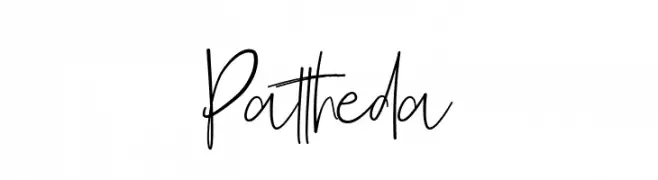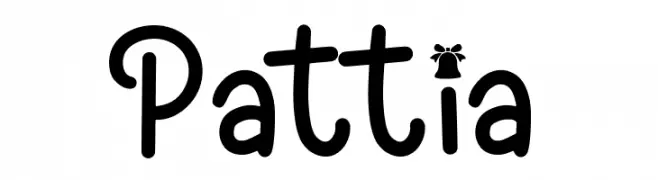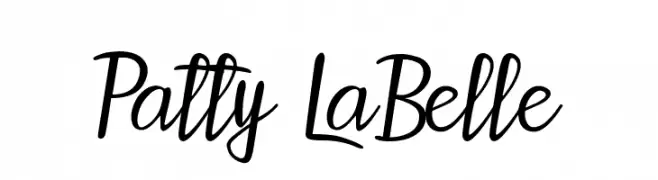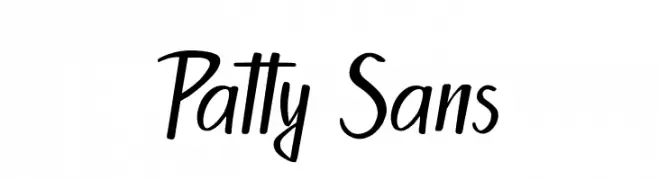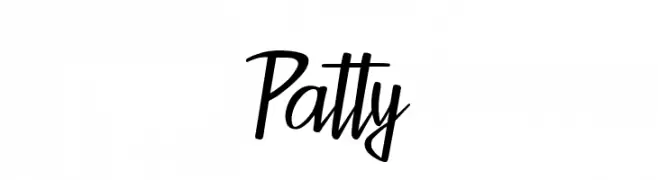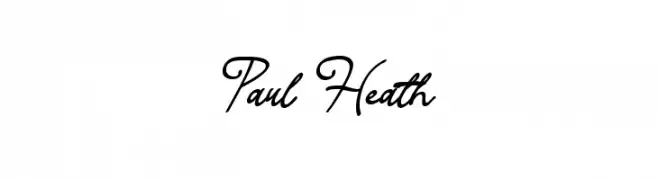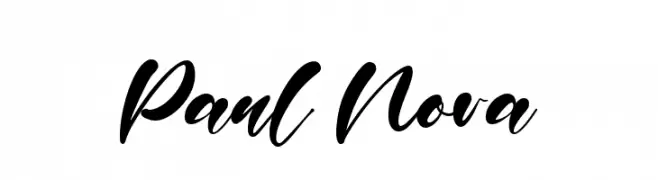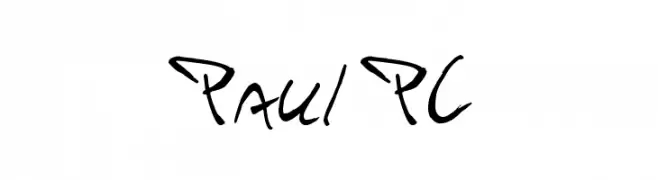
A lively, handwritten-style font with dynamic, fluid strokes.
A playful, hand-drawn font with rounded, friendly characters.
A delicate and flowing script font with elegant, intricate curves.
A dynamic and elegant script font with smooth curves and a slight slant.
A lively and elegant script font with flowing, cursive letterforms.
A playful, handwritten-style font with smooth, fluid strokes and dynamic movement.
A fluid, elegant handwritten font with a natural, personal touch.
Elegant handwritten script font.
A dynamic, cursive script font with elegant, sweeping strokes.
A bold, expressive handwritten font with dynamic strokes.